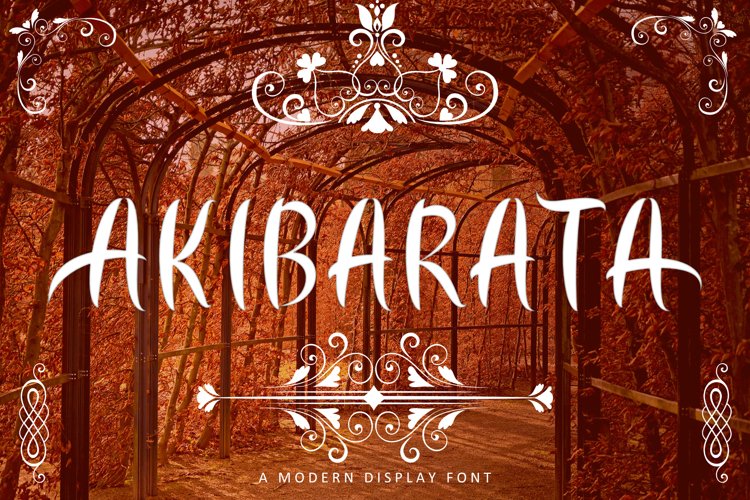
We are proudly presenting our new font - AKIBARATA
AKIBARATA is modern display font. AKIBARATA is a bold decorative font perfect for your design needs.
AKIBARATA would perfect for Titles for kid`s book, scrapbook, logo, icon, phrases or quotes for winter greeting cards, photo overlay, short phrases, children’s book, gift shops tag, presentation in social media such as Pinterest, Instagram, Facebook or others.
AKIBARATA FEATURES